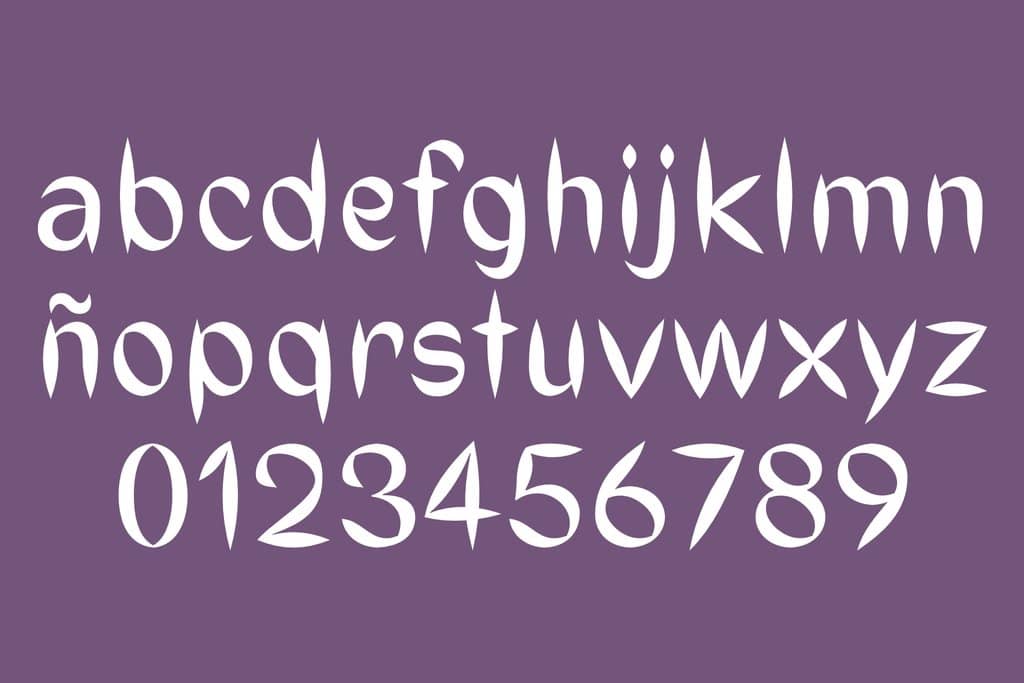
About Anahaw Font
Anahaw is another new display sans-serif typeface propelled by the informal Philippine National Leaf—the Anahaw. The leaf has been utilized as pambalot (food covering) for tikoy, or as an improvised lunchbox. It has been made into an Abaniko (fan), which is lovely and a show-stopper. Anahaw Font is designed by hanken.co.
Anahaw is perfect for branding purposes. You can create posters, banners, logos, etc. with the help of this. Also, you can use this font for T-shirt printing and YouTube thumbnail.
| Style | Display, Sans-serif |